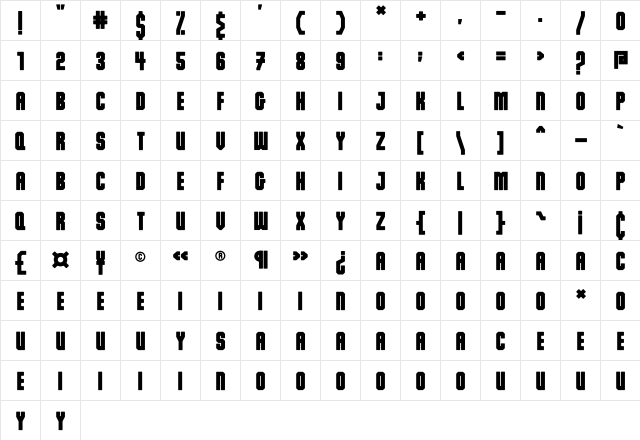
Dalmation Demo Regular
Design Context for Dalmation Demo Typeface
Dalmation Demo offers clean, dependable letterforms without strong stylistic allegiance, making it a practical choice for designers who need flexibility.